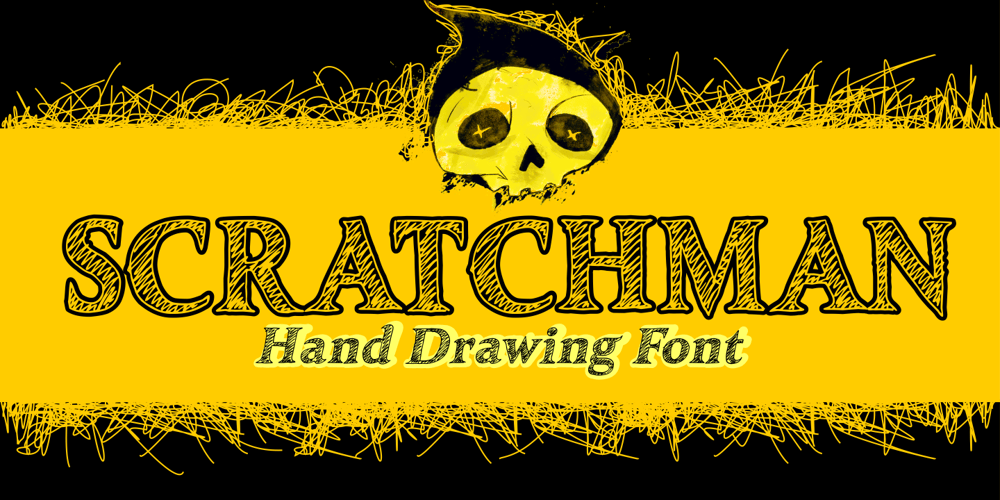
Scratchman Font Family was designed by Ahmad Zulfikar Ali and published by ZetDesign. Scratchman contains 2 styles and family package options. Scratchman is a serif type font that has been scribbled by hand to present a neat text while still producing a natural and familiar look. thus this font can be an alternative for any designer who wants a different and unique look. This font is very suitable for use in the work of posters, t-shirts, comics, cartoons, doodle art, grafitty, flyers, etc. This font has two styles, regular and italic which are equipped with the open type feature.enjoy your font …!